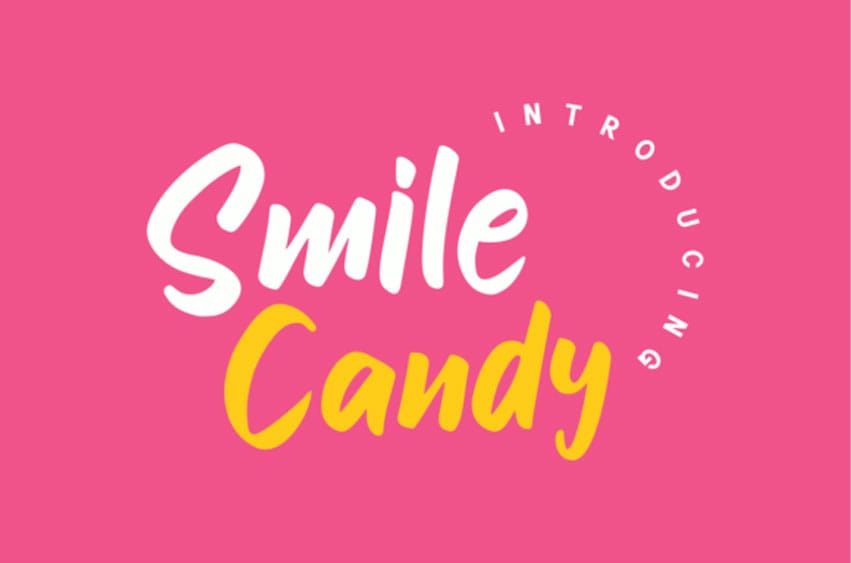
Smile Candy Font
Smile Candy Font is a bold and fun handwritten font.
It’s playfulness make it great for creative projects, be it inspirational wall posters or for communicating your brand.